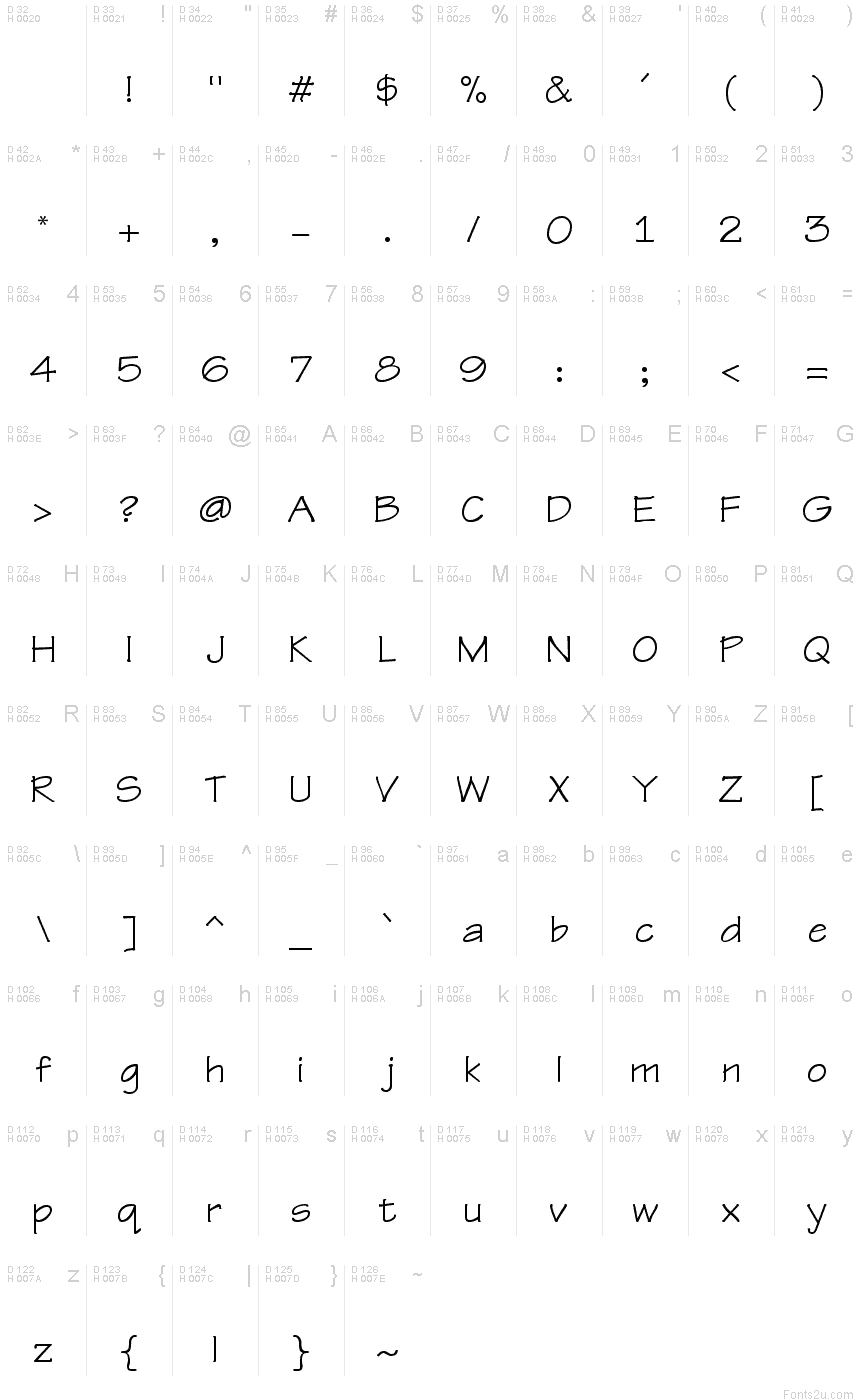
HF Massis Shant N Unicode from BYTEC Computers and Massis Graphics is a free handwritten font with tall, loosely drawn letters and an airy monoline stroke. Its uneven widths and gently wandering forms resemble casual marker lettering.
On packaging, editorial covers, and digital graphics, the open shapes lend a relaxed, independent character to prominent text. It also suits music merchandise and informal event posters, linked across these uses by its handmade proportions and unpolished line quality.